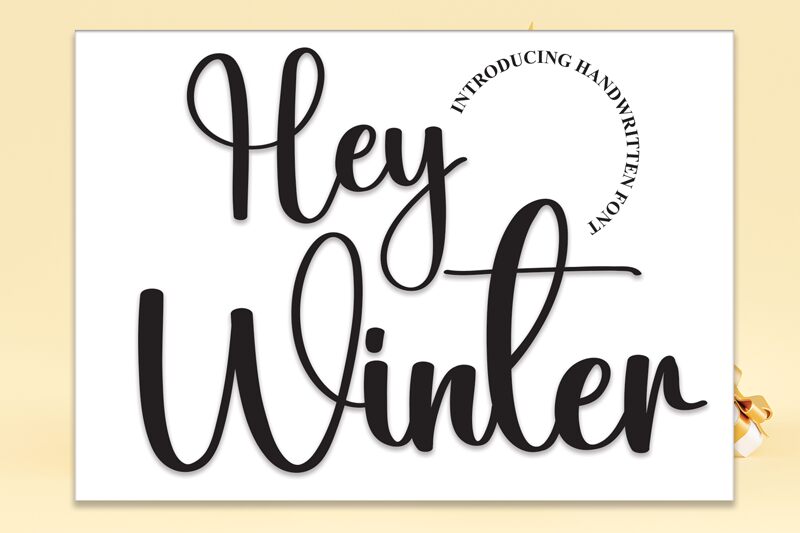
Hey Winter
Hey Winter, a calligraphy masterpiece by Scratchones, presents an elegant and flowing semi-light font that captures the whimsical charm of handwritten artistry. With its delicate and refined strokes, Hey Winter exudes a sense of warmth and personal touch that is perfectly suited for invitations, greeting cards, and branding projects seeking a touch of intimacy and sophistication.
The fluidity of its characters adds a dynamic rhythm to any text, making it an excellent choice for designers aiming to impart a bespoke feel to their work. Its semi-light weight ensures that it remains legible while maintaining an airy gracefulness. Whether used for festive occasions or as a subtle nod to the serene beauty of winter in marketing materials, Hey Winter's aesthetic appeal is versatile enough to enhance diverse creative endeavors with its stylish allure.